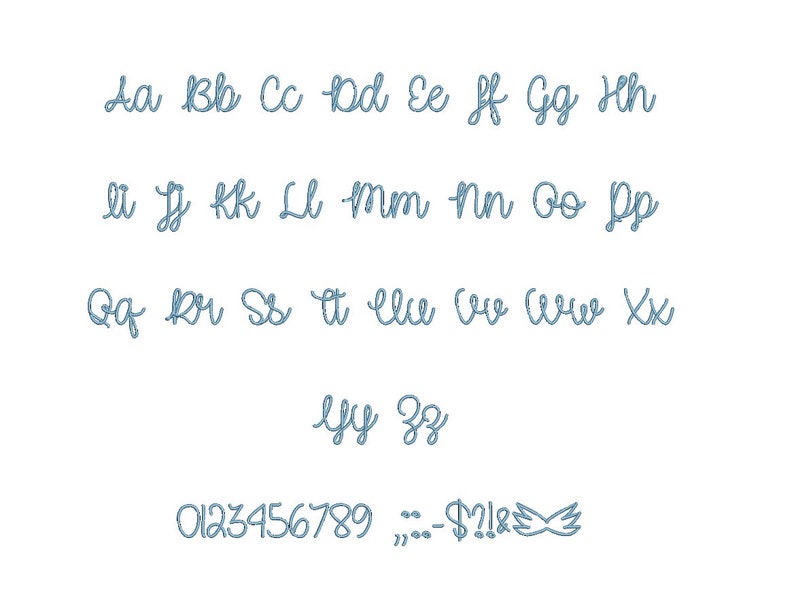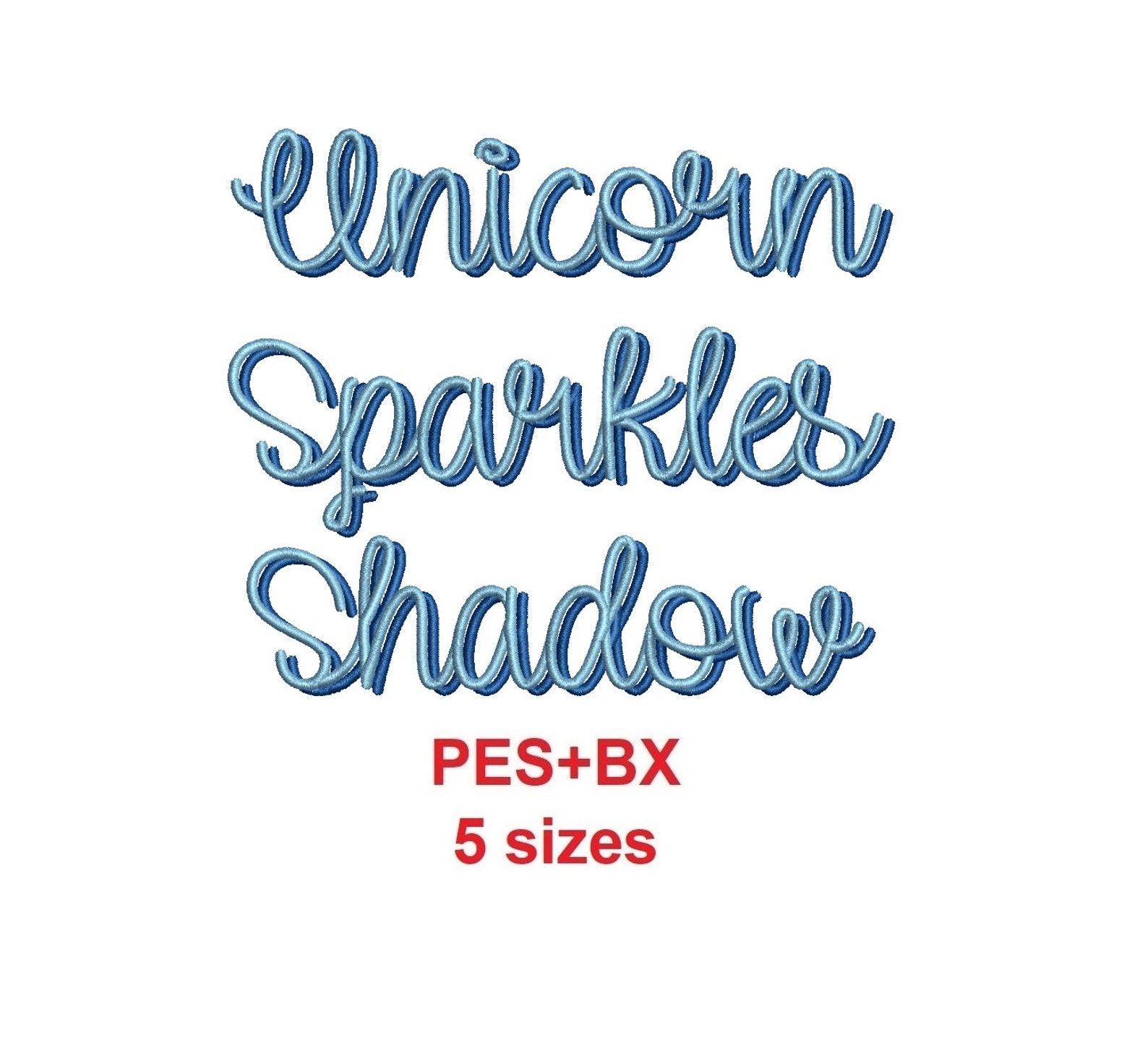
Unicorn Sparkles is a magical, monoline script that is perfect for a Unicorn Sparkles Font Free download of unicorn sparkles font. You may not trace or edit my fonts and then resell them as your. Download and install the unicorn sparkles font by misti's fonts. Unicorn sparkles à € by misti's fonts. If you make money from using this font, you must purchase a license. Click now to create a custom. Download unicorn sparkles (49990). Unicorn Sparkles Font.